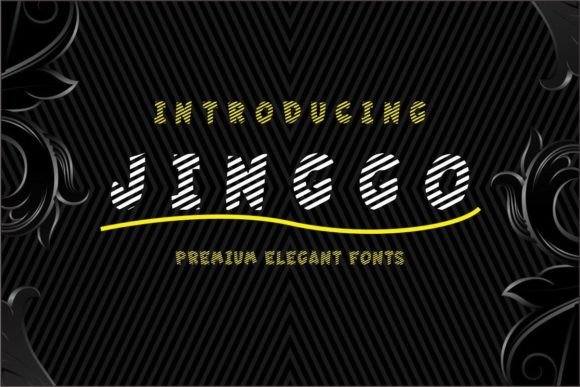
Jinggo Font
Unleash the allure of Jinggo, a captivating display font that embodies individuality and exquisite style. With its bold strokes and playful curves, Jinggo dances across your designs, adding a touch of whimsy and sophistication. Immerse yourself in a world of creative possibilities as you witness the transformation of ordinary words into extraordinary works of art.
Picture this: your website adorned with Jinggo's presence, enticing visitors with its irresistible charm. The tantalizing aroma of freshly baked goods wafts through the air, and the vibrant colors of mouthwatering dishes dance before your eyes. Jinggo becomes the culinary companion you never knew you needed, guiding your customers through a delectable journey of flavors and textures.
But Jinggo's magic extends far beyond the realm of food. Its versatility knows no bounds, transforming logos into emblems of creativity and adorning backgrounds with an air of elegance. Envision t-shirt designs that speak volumes, capturing the essence of your brand with every thread. Jinggo empowers you to weave a tapestry of visual storytelling, captivating your audience with its undeniable allure.
Step into the spotlight with Jinggo, the font that sets you apart. Let its captivating presence enhance your designs, unlocking a world of endless possibilities. Embrace the essence of uniqueness, and watch as your creations blossom into masterpieces that leave an unforgettable impression.
As you add Jinggo to your design arsenal, feel the surge of inspiration coursing through your veins. Its enigmatic strokes ignite a spark within you, propelling your imagination to soar to new heights. With Jinggo by your side, you become an architect of visual wonders, crafting experiences that resonate with your audience on a deeply emotional level.
Don't let mediocrity hold you back. Embrace the extraordinary with Jinggo, the display font that sets your designs ablaze with its captivating presence. Elevate your brand, captivate your audience, and leave an indelible mark on the world of design. Choose Jinggo today, and embark on a journey of boundless creativity.